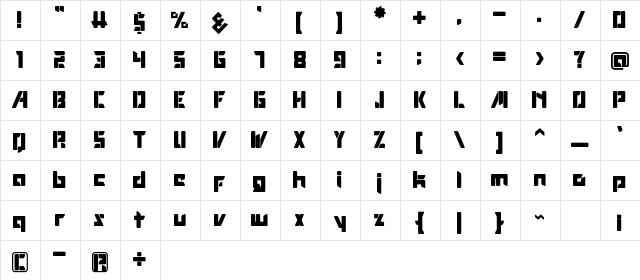
ROBOTOP Regular
| Foundry | Sembodo Studio |
| Designer | Sembodo Studio |
Design Context for ROBOTOP Typeface
ROBOTOP is a composed and adaptable typeface that performs quietly and consistently across a wide range of design contexts.